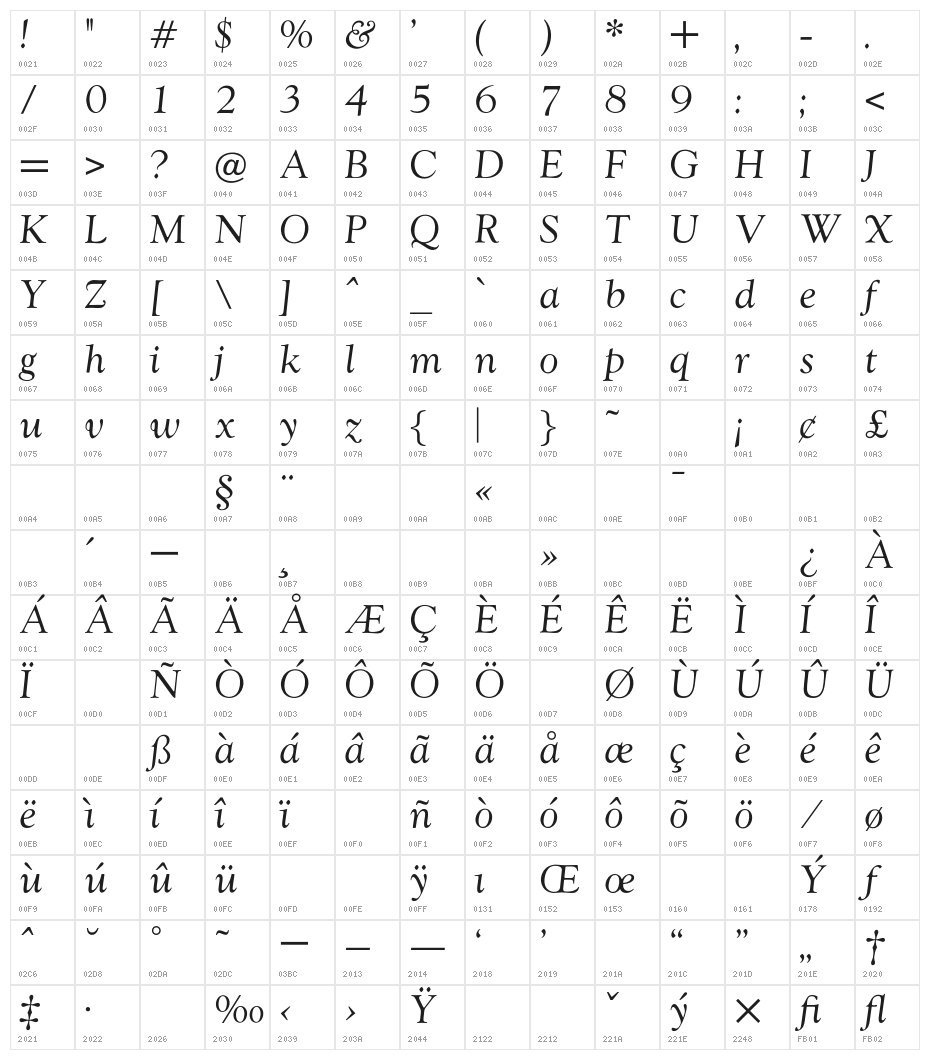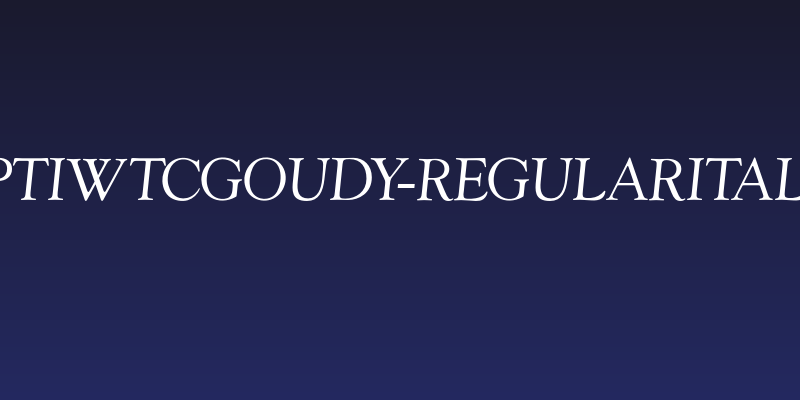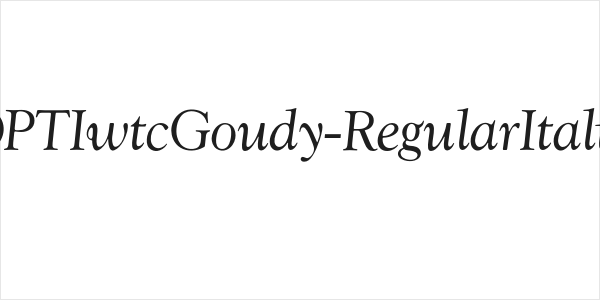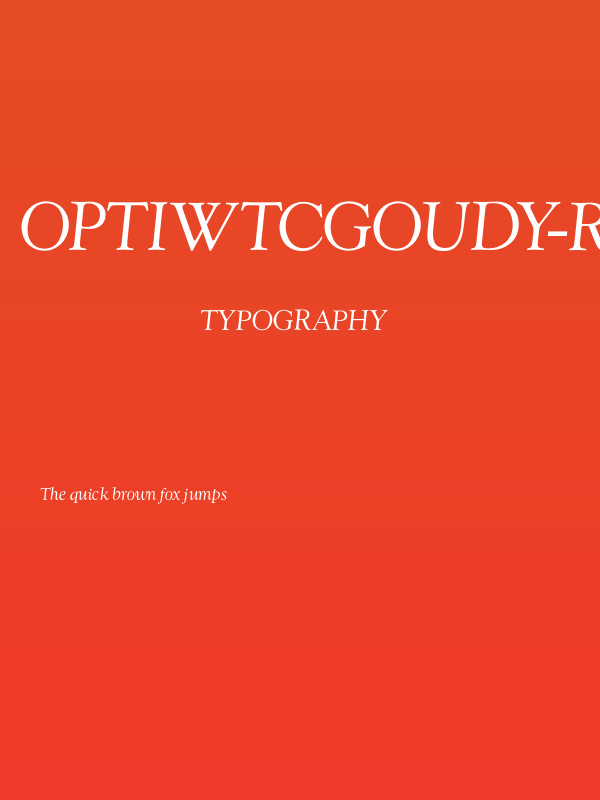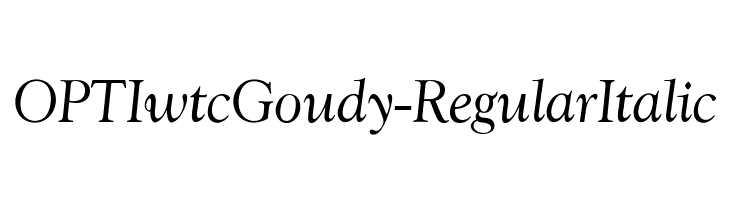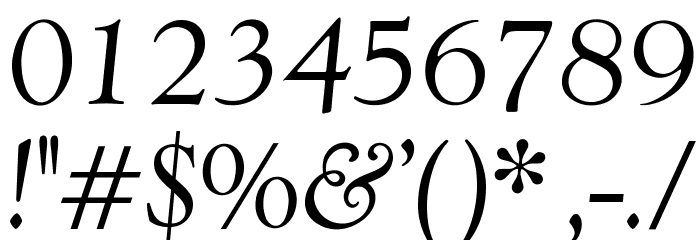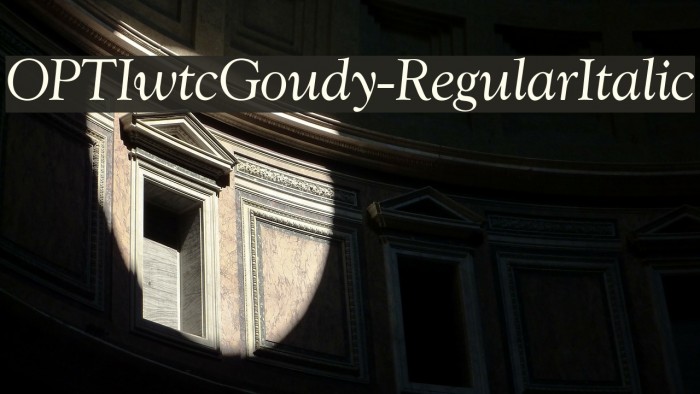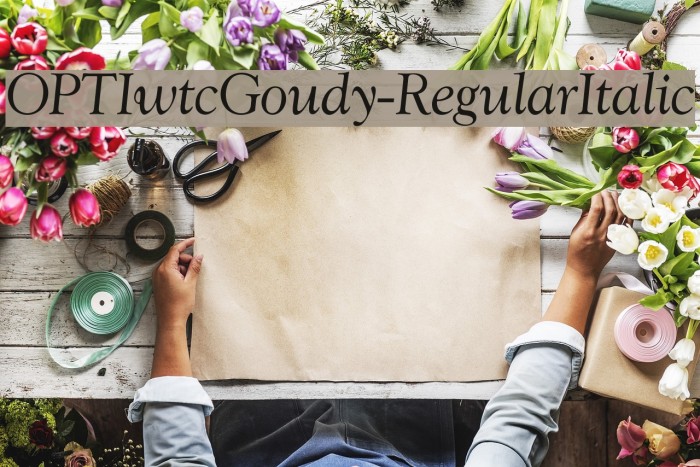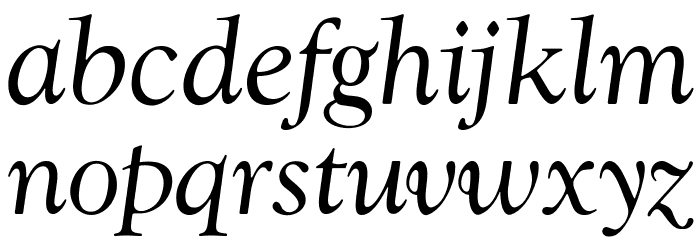
OPTIwtcGoudy-RegularItalic Font
OPTIwtcGoudy-RegularItalic Description
This font features a classic and elegant design with a slight italic slant, giving it a sophisticated and refined appearance. The uppercase letters are tall and slightly narrow, with subtle serifs that add a touch of tradition. The lowercase letters are more rounded, maintaining a consistent flow that enhances readability. The numerals are well-proportioned, aligning harmoniously with the alphabet characters. Special characters are distinct and clear, ensuring versatility in various applications. The overall design is balanced, making it suitable for both formal and creative projects.
| Overall Style | Classic |
| Use Case | Headlines, Body text, Logos |
| Proposed Projects | Ideal for use in editorial design, book covers, formal invitations, and branding materials that require a touch of elegance. |